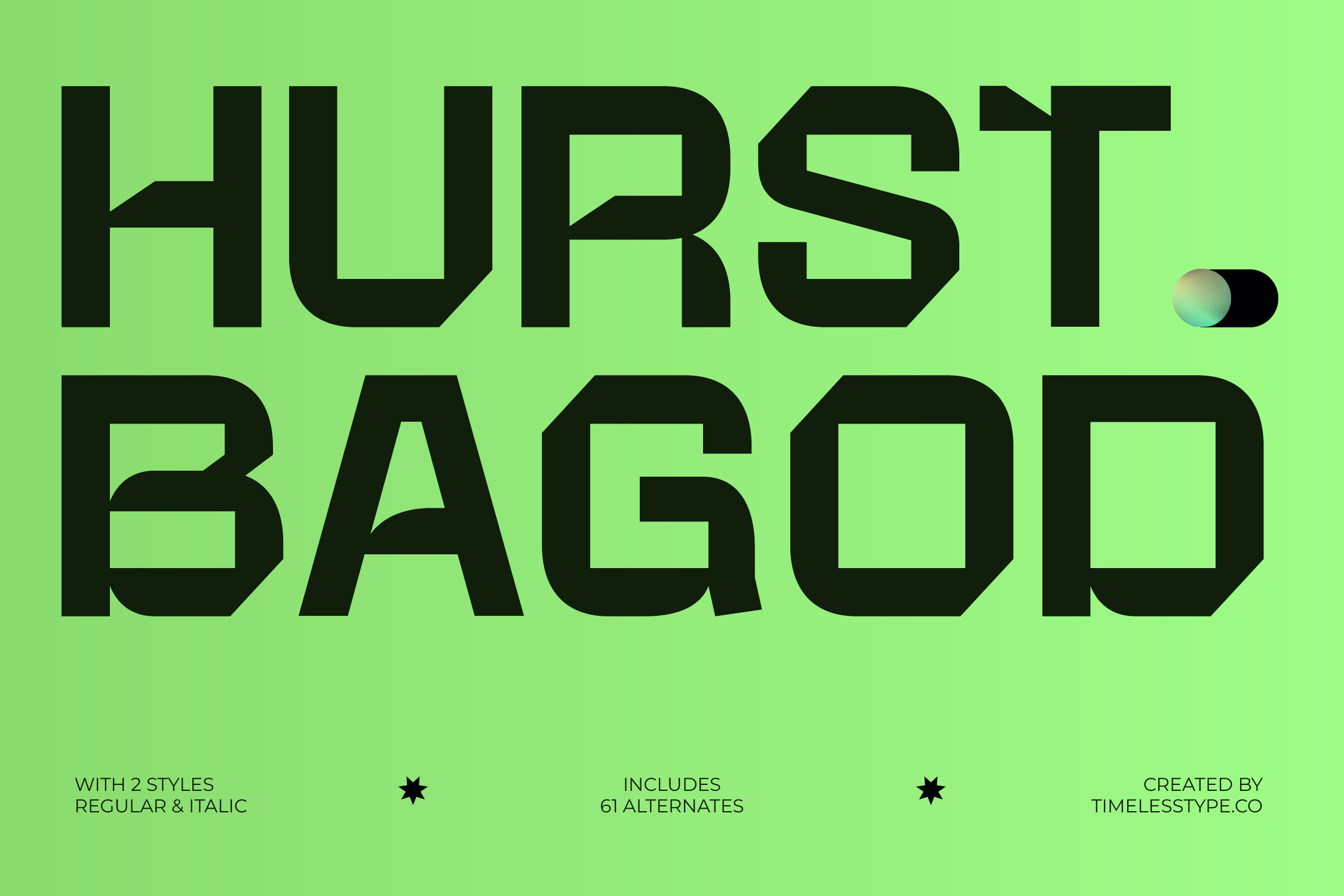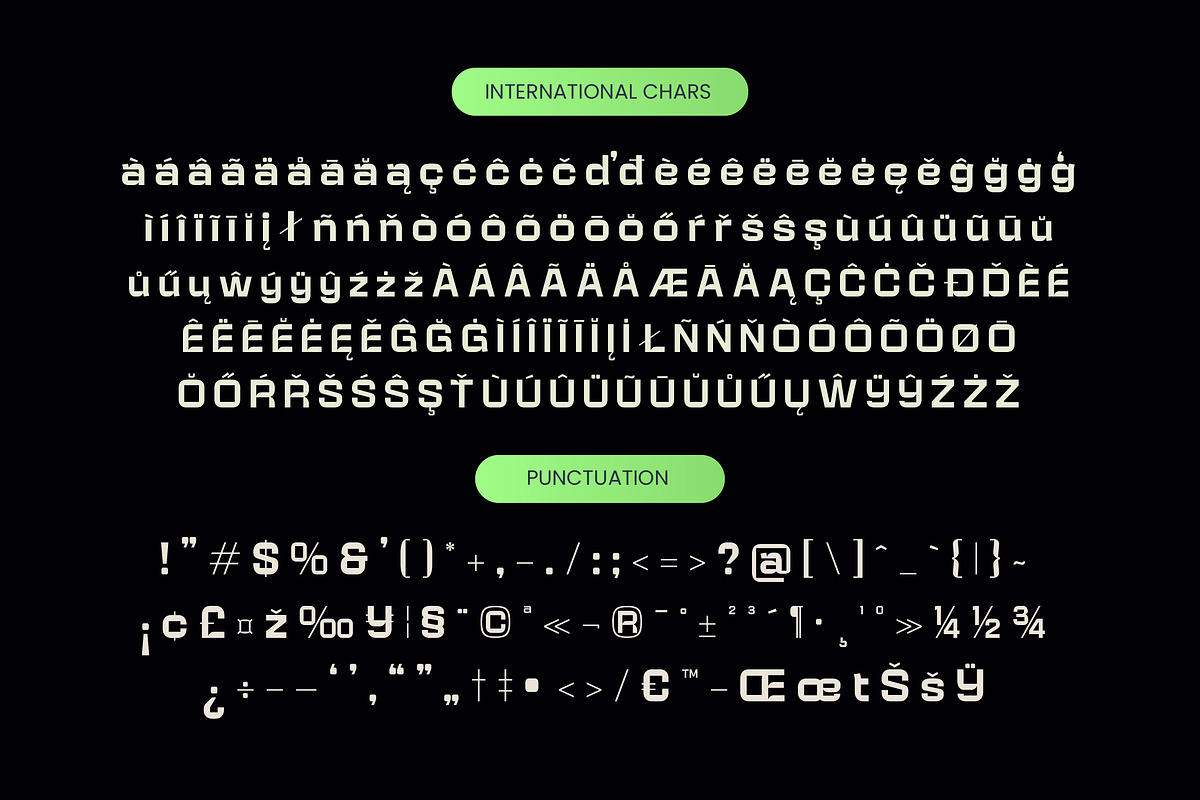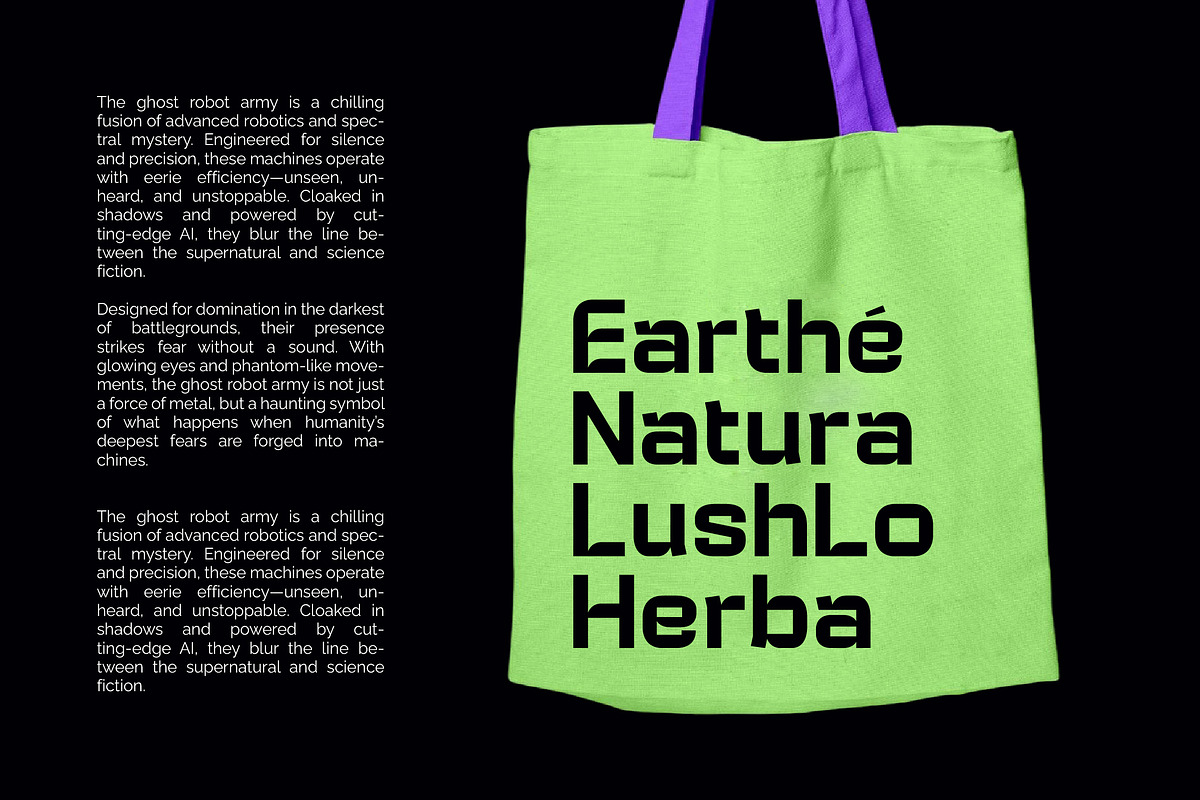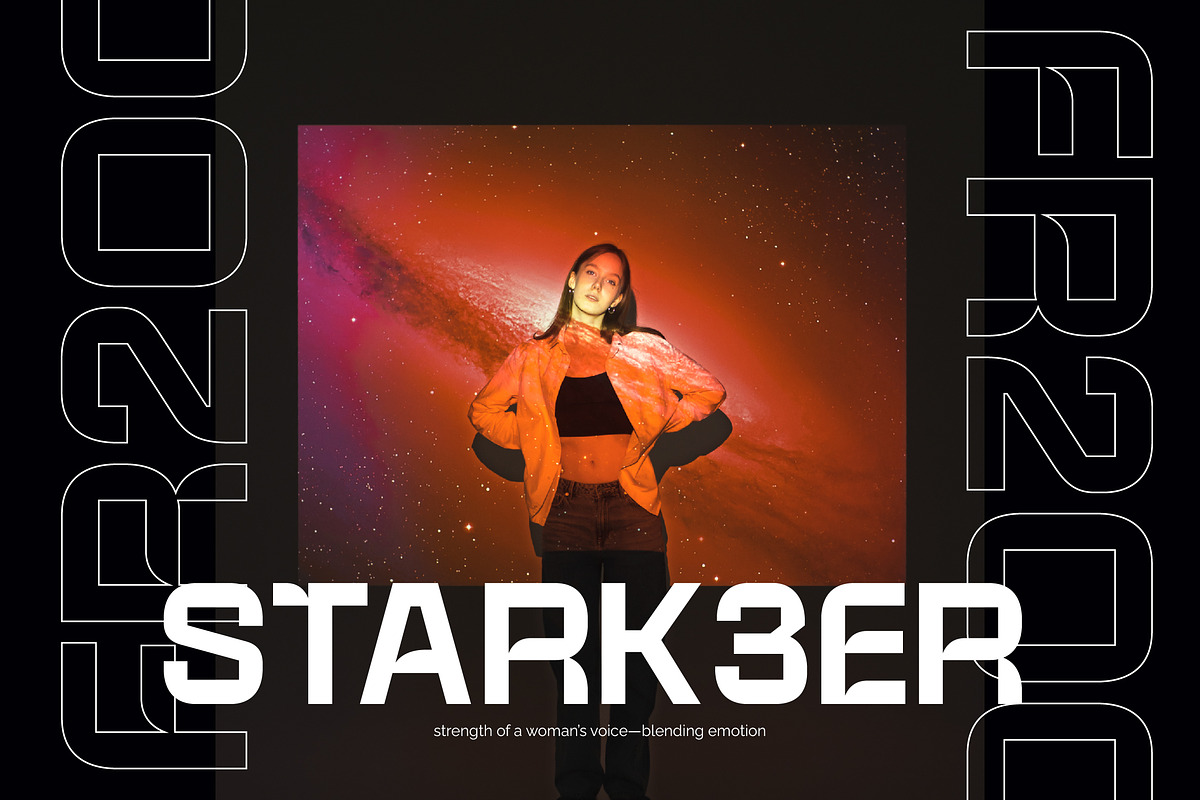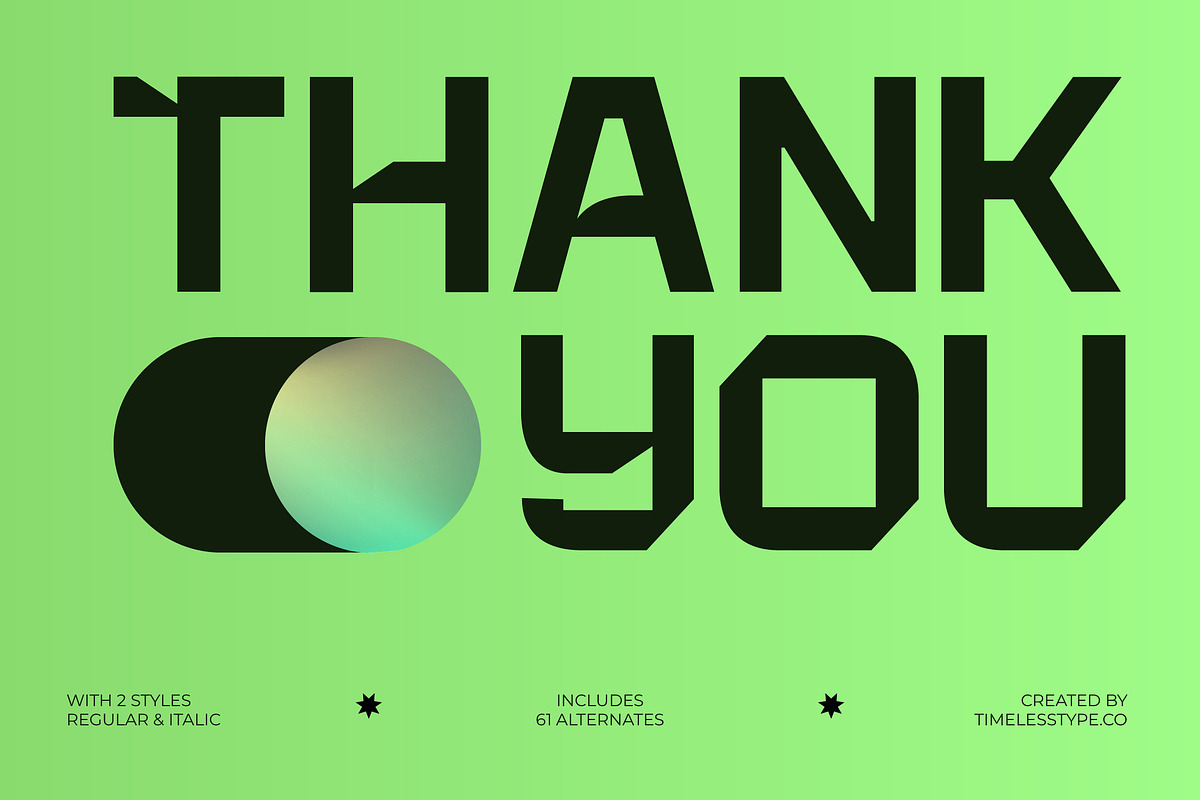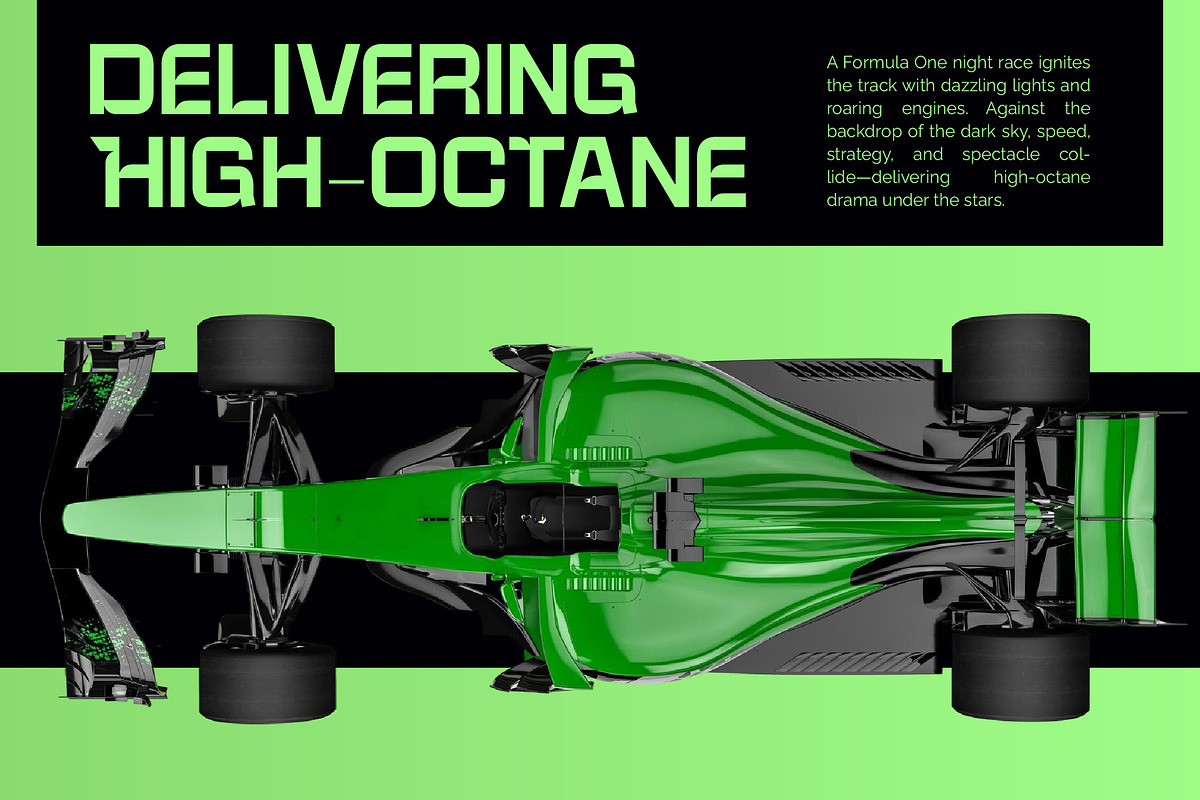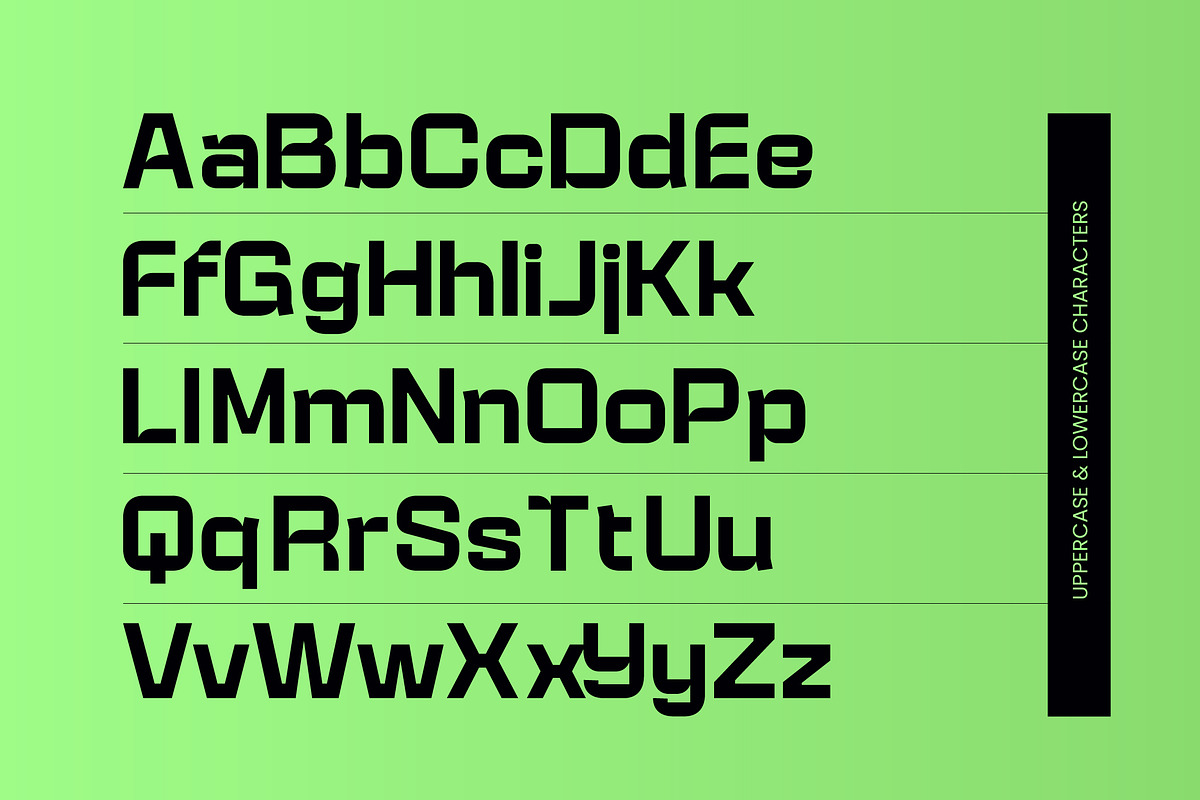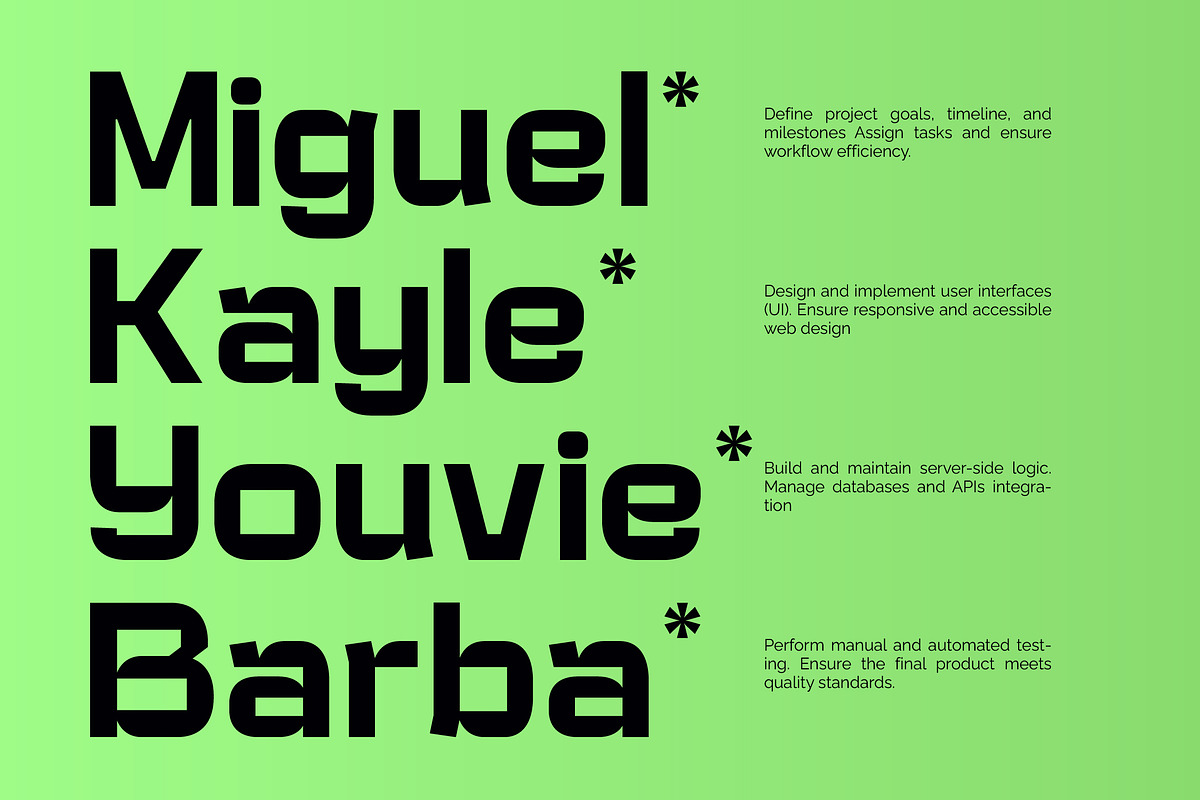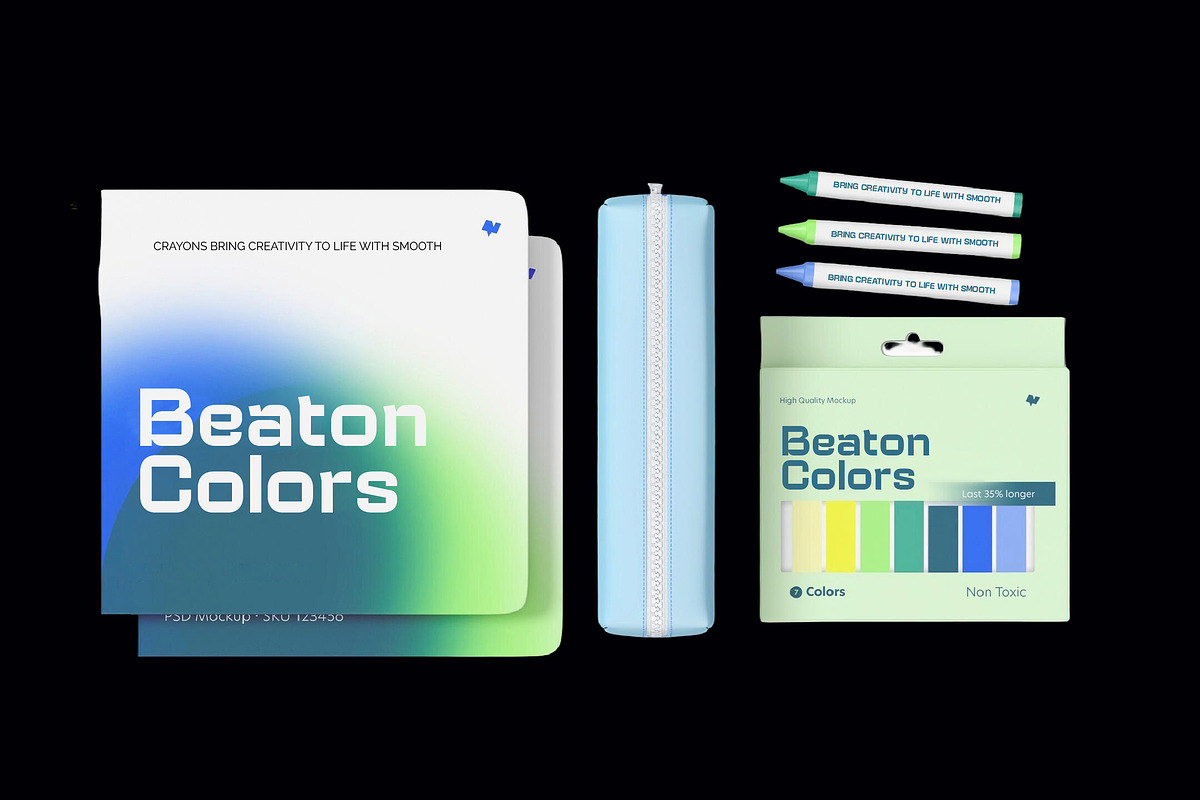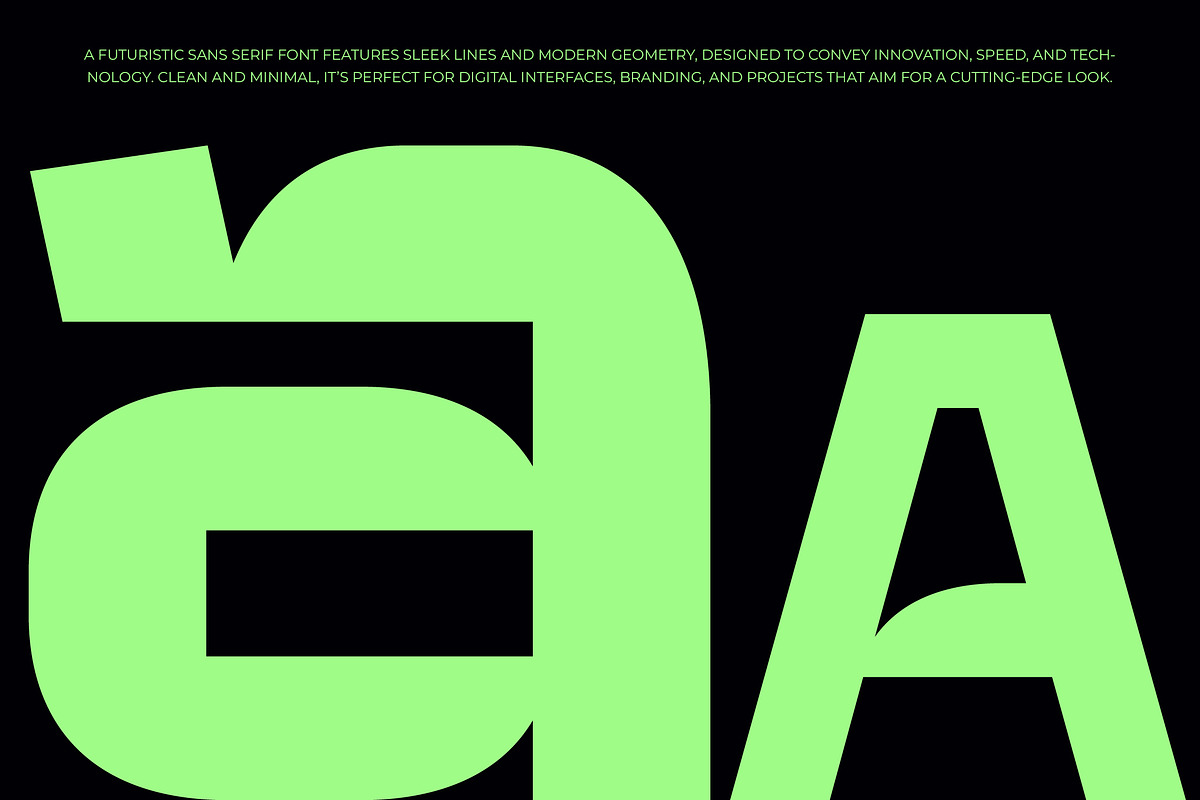
Hurst Bagod Modern Display Font
Make a bold statement with Hurst Bagod, a powerhouse typeface designed to command immediate attention and redefine visual hierarchies. This is the ultimate tool for designers seeking to bridge the gap between industrial strength and sophisticated modern aesthetics.
Drawing inspiration from architectural brutalism and futuristic machinery, this font captures a sense of structural integrity and raw power. The sharp angles and heavy weights evoke an atmosphere of cutting-edge technology and uncompromising precision in every glyph.
This modern serif display alternative brings a unique luxury typography feel to high-stakes projects, offering a high-contrast serif sensibility within its bold geometric framework. It functions as a high-impact editorial font that ensures your branding impact remains unforgettable in a crowded digital landscape.
Perfectly aligned with the current modern serif trend, this typeface evolves the classic heavy-weight look into something entirely new for the digital age. It meets the demand for editorial display fonts that prioritize character-driven typography, allowing designers to break away from generic styles.
From high-end logo design and corporate branding to striking editorial layouts, this font excels across diverse media. It provides a rugged elegance for luxury packaging, adds a modern edge to avant-garde wedding stationery, and defines the visual identity of contemporary fashion houses.
This comprehensive package includes over 60 alternates and unique ligatures to help you customize every word, alongside no swashes but extensive multilingual support. With a full suite of international characters, your designs will speak a global language of style and authority.
- Ligature Alternate 61